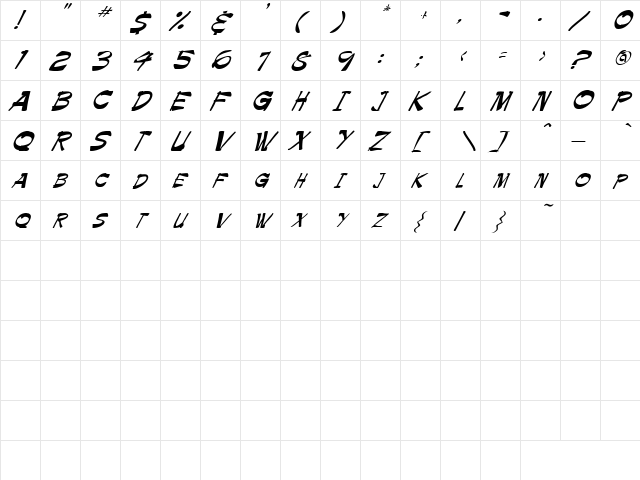
Hollow 5 Italic
Design Context for Hollow 5 Typeface
Hollow 5 offers clean, dependable letterforms without strong stylistic allegiance, making it a practical choice for designers who need flexibility. The dynamic lean of this cut emphasises speed and emphasis in any layout.
Pro Tip: Use Hollow 5 for emphasis, pull quotes, and subheadings where its slanted energy can add rhythm to the layout.